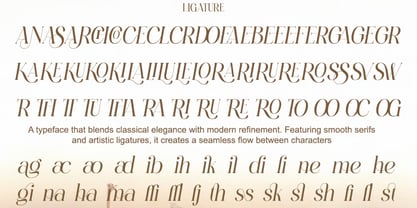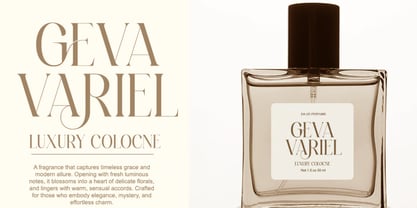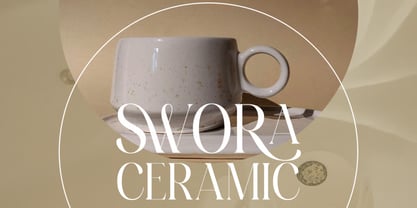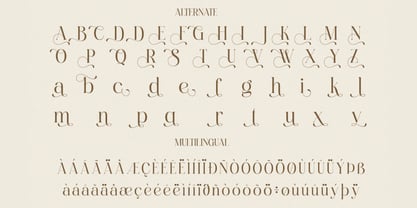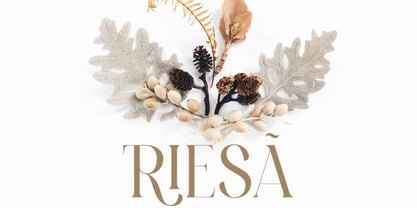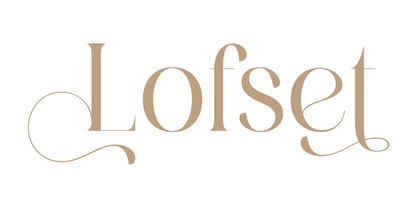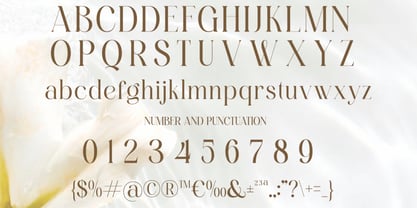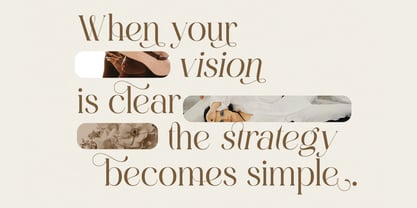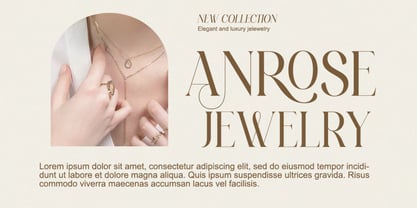
Lofset
Lofset is an elegant modern serif font thoughtfully crafted with graceful curves, expressive swashes, and refined editorial details. Blending feminine sophistication with confident modern styling, Lofset delivers a luxurious typographic experience that enhances premium branding, fashion editorials, and high-end creative projects.
Inspired by contemporary luxury magazines and timeless serif craftsmanship, Lofset features smooth high-contrast strokes, artistic ligatures, and beautifully designed alternates that add personality and refinement to every composition. Its balanced proportions and elegant structure create typography that is both visually striking and exceptionally readable.
Whether you're designing luxury brand identities, botanical packaging, boutique logos, magazine headlines, wedding stationery, skincare branding, or premium lifestyle campaigns, Lofset transforms every design into a sophisticated statement of style and elegance.
• Elegant Modern Serif Design: Refined letterforms with a luxurious editorial aesthetic.
• Regular & Italic Styles: Versatile font family for expressive typography.
• Graceful Curves & Expressive Swashes: Elegant details that create premium visual appeal.
• Stylish Ligatures & Alternates: Creative OpenType features for distinctive typography.
• Smooth High-Contrast Strokes: Inspired by luxury fashion and editorial design.
• Uppercase & Lowercase Characters: Complete character set for versatile design applications.
• Multilingual Support: Includes accented characters for international projects.
• Premium Display Typeface: Optimized for branding, publishing, and digital media.
• Luxury Branding & Logo Design: Create elegant and unforgettable brand identities.
• Editorial Layouts & Magazine Covers: Ideal for fashion magazines, headlines, and publishing.
• Botanical & Beauty Packaging: Perfect for skincare, cosmetics, candles, perfumes, and wellness products.
• Boutique Branding: Build premium identities for fashion, floral, and lifestyle businesses.
• Wedding Invitations & Stationery: Add timeless romance and sophistication to special occasions.
• Lifestyle & Social Media Design: Create polished content with editorial-inspired typography.
• Luxury Advertising & Marketing: Elevate promotional campaigns with refined visual style.
• Book Covers & Creative Publishing: Enhance storytelling with graceful serif typography.
Elevate your creative work with Lofset—an elegant modern serif font featuring expressive swashes, stylish ligatures, refined alternates, and luxurious editorial styling. Perfect for luxury branding, botanical packaging, fashion editorials, boutique logos, magazine headlines, wedding stationery, and sophisticated visual identities that leave a lasting impression.